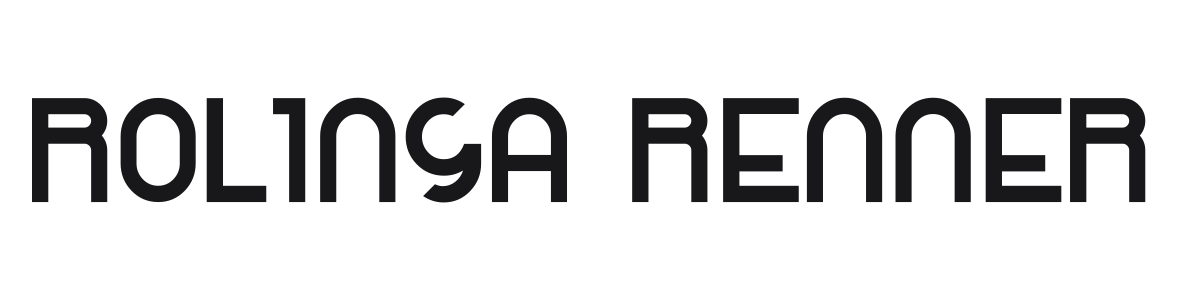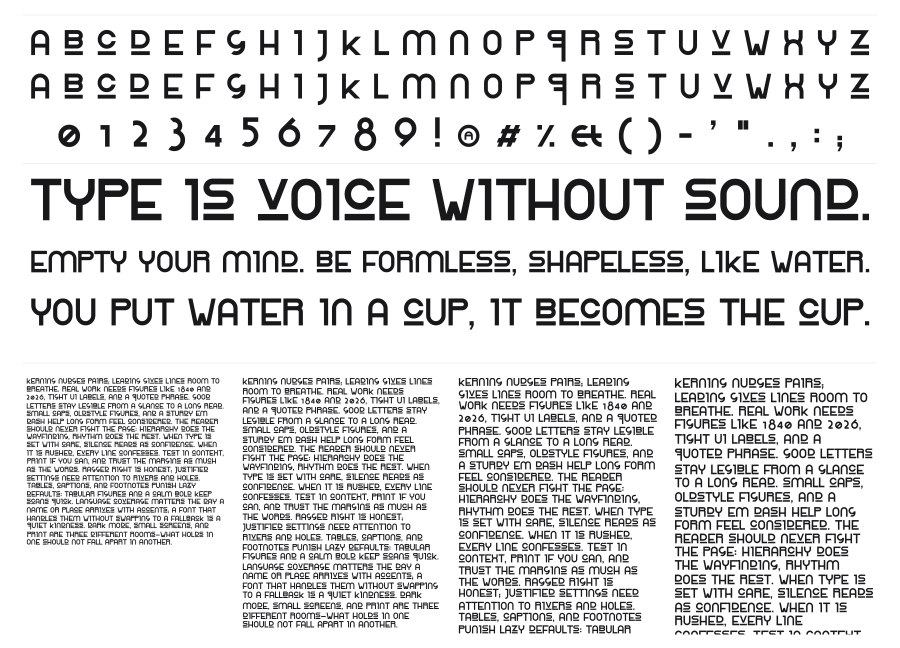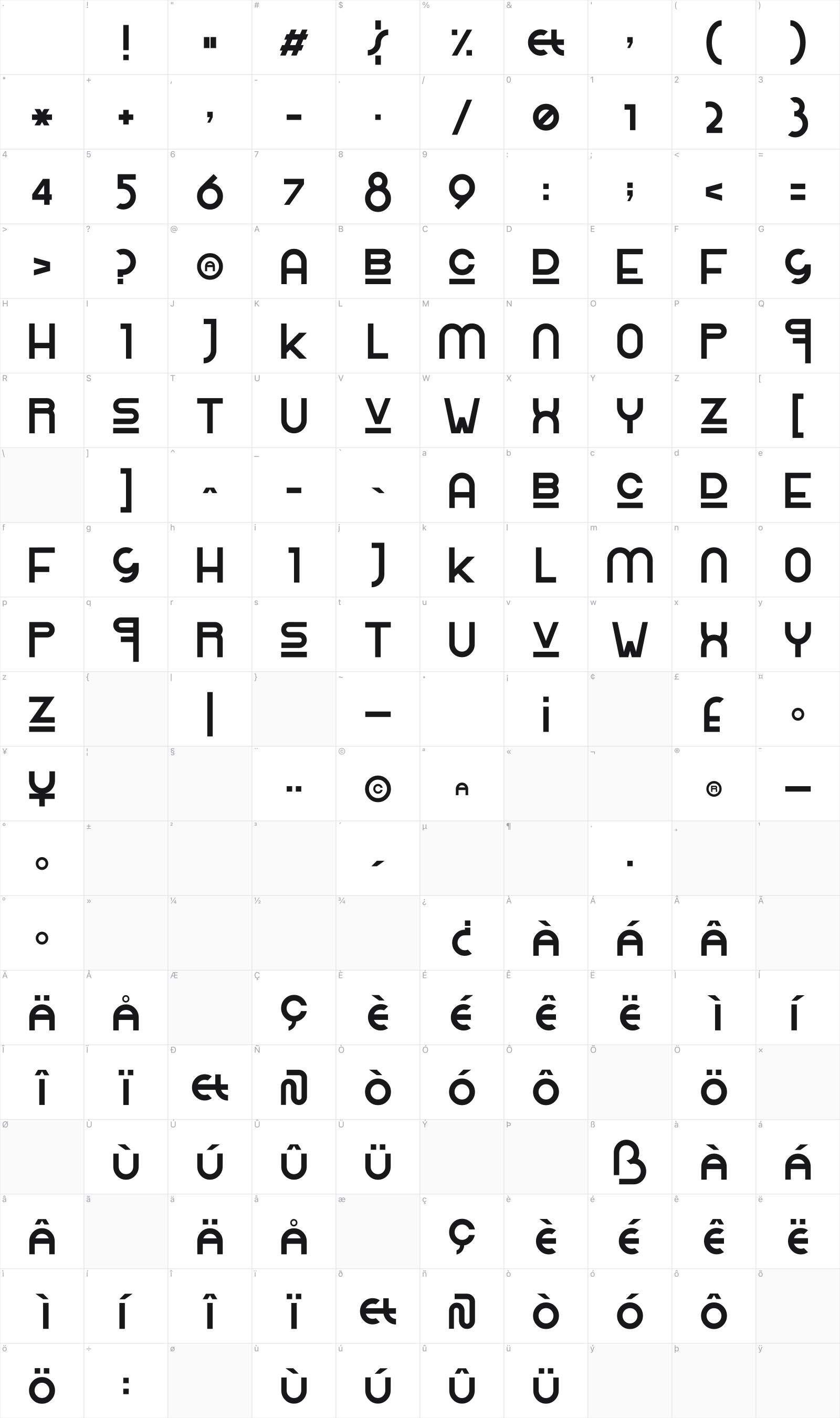
Rolinga Renner
Rolinga Renner is a bold geometric sans-serif with clear roots in the Bauhaus and Futura tradition. Its characters are built from near-uniform strokes with distinctive segmented curves and flat-cut details that give it a modular, constructed energy. Heavy proportions and a wide stance make it a natural choice for impactful headlines and identity work.